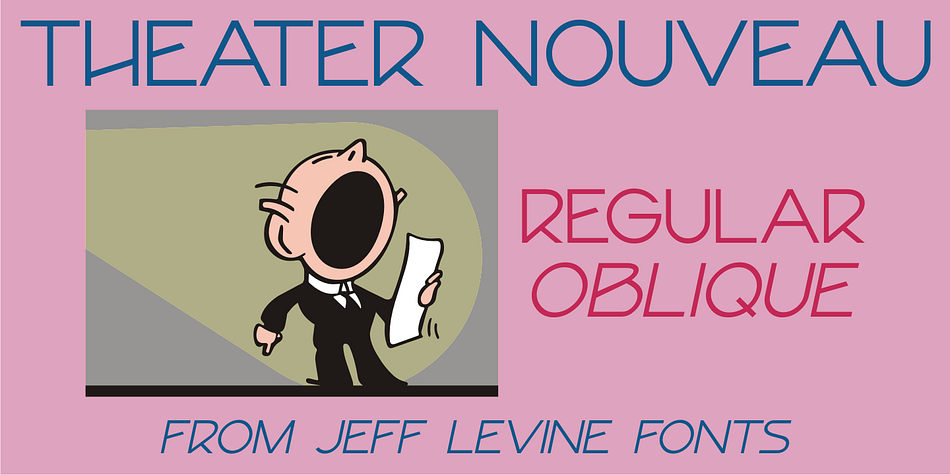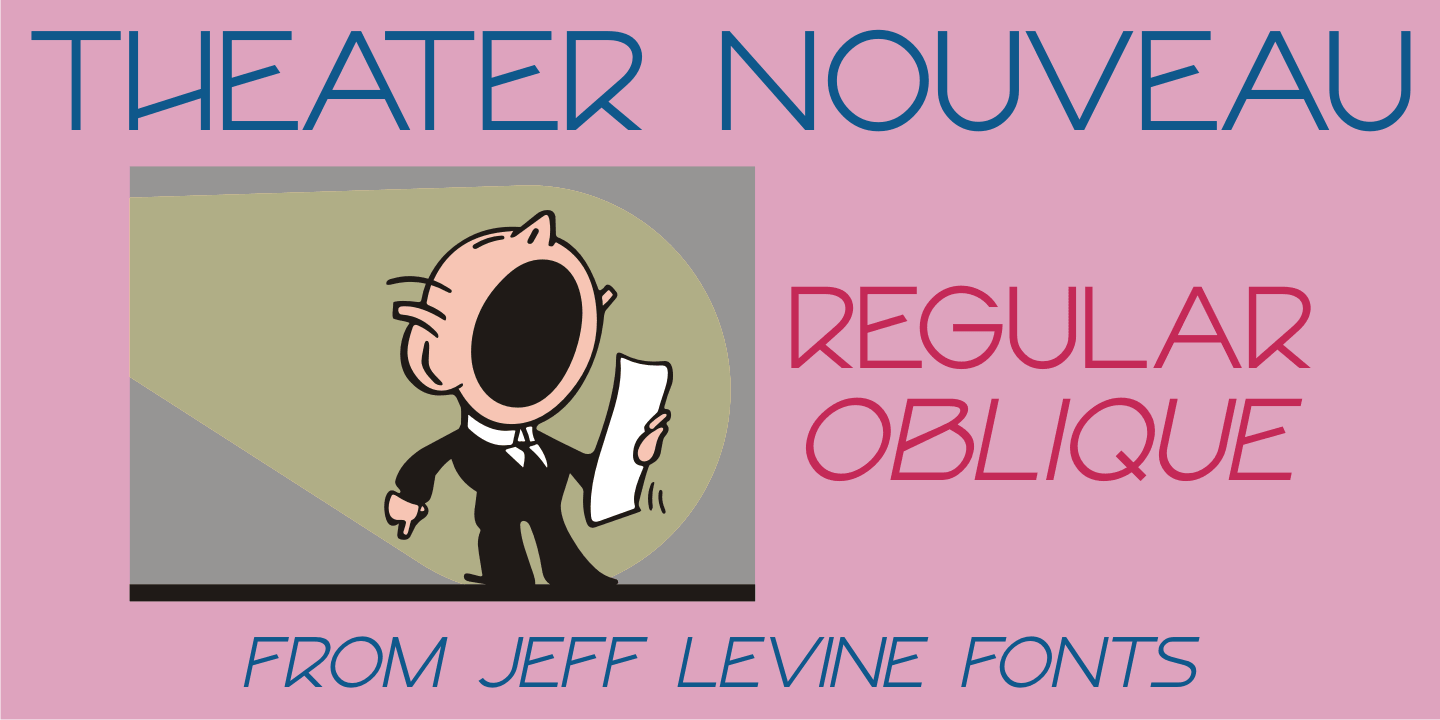
THEATER NOUVEAU JNL
Designed by Jeff Levine, Theater Nouveau JNL is an art nouveau font family. This typeface has two styles and was published by Jeff Levine Fonts.
Sheet music from the 1911 stage production of the comic opera “The Enchantress” featured the hand lettered names of both the star and composer in a monoline Art Nouveau style.
This sans serif type design is now available as Theater Nouveau JNL in both regular and oblique versions.